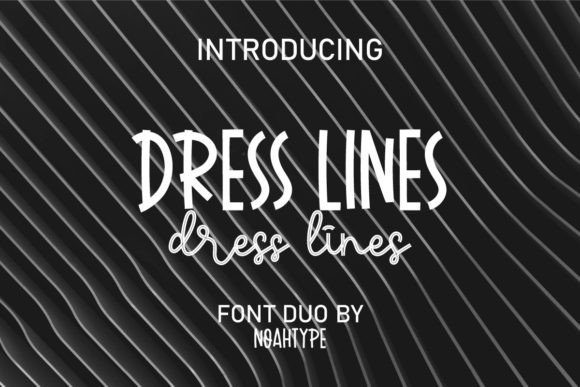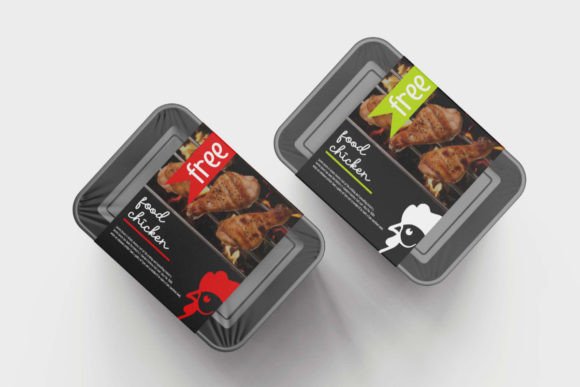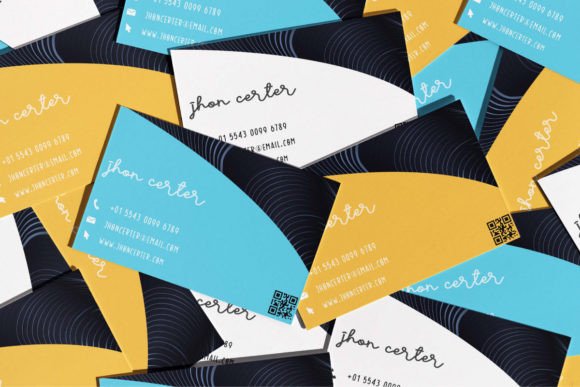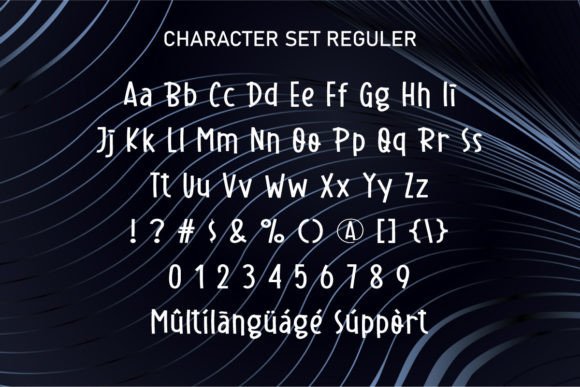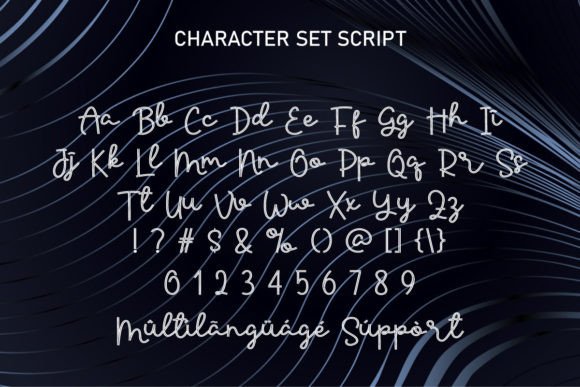
About Dress Lines Duo
Dress Lines is a perfect blend of two different types of fonts. This font includes a funny sans display and script with a special feature of stripes which makes it modern, unique, and easy to read. It will be amazing for many projects.